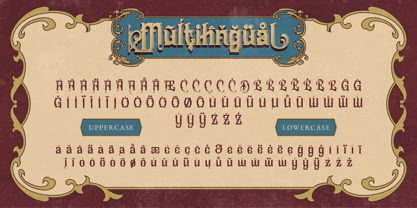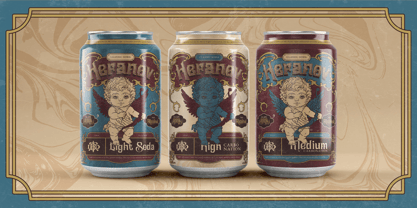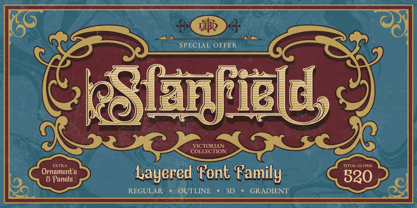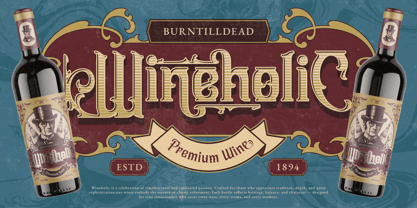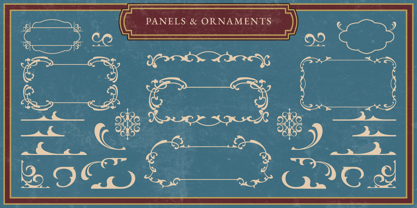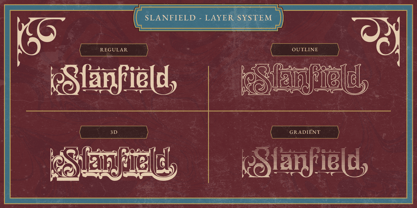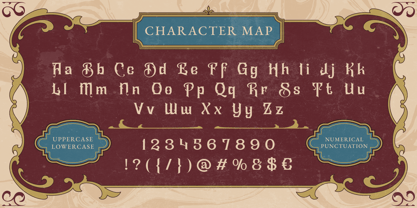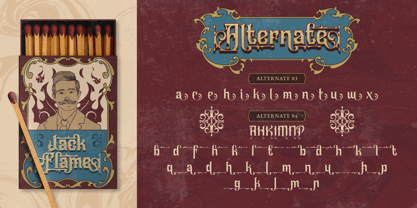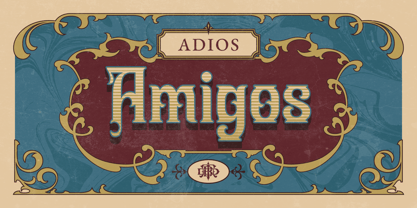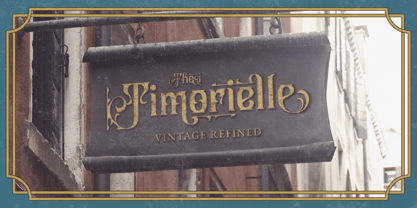
Slanfield
by Burntilldead
The Slanfield Font Family was designed by Eric Kurniawan and published by Burntilldead. Slanfield contains 4 styles and family package options. More about this family
Bring a touch of classic luxury to your designs with Slanfield, a premium Victorian-inspired font family. Designed with intricate details and a timeless aesthetic, this layered font system allows you to create stunning vintage typography with depth and character. Slanfield offers a seamless blend of classic Victorian aesthetics and modern design flexibility, featuring a sophisticated layered system with Regular, Outline, 3D, and Gradient styles that you can easily stack for a professional dimensional effect. This font family provides endless creative freedom, including smart alternates and stylistic swashes that give your typography a unique, hand-lettered touch. Whether you are working on high-end branding, vintage signage, or ornate packaging, Slanfield provides the versatility and elegance your project deserves.
Designers: Eric Kurniawan
Foundry: Burntilldead